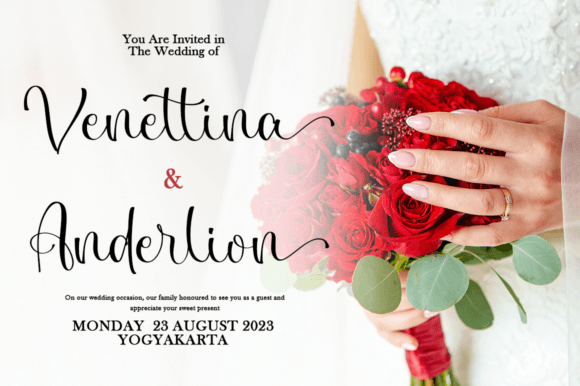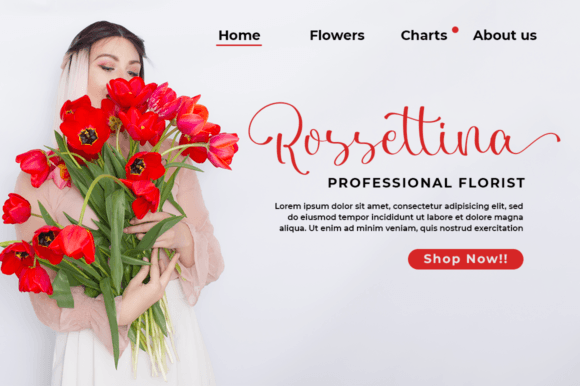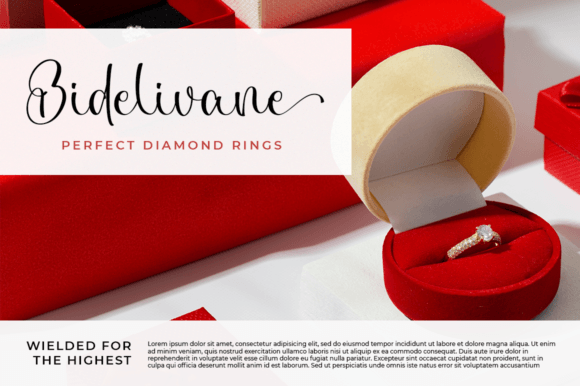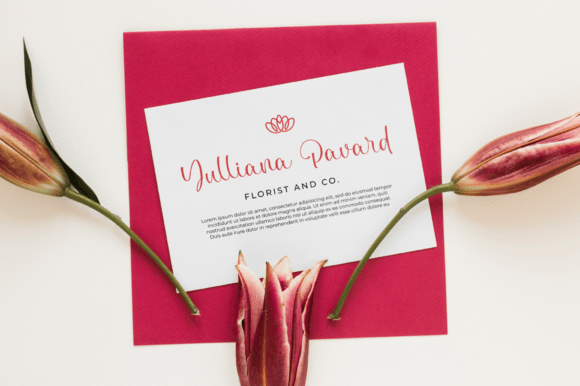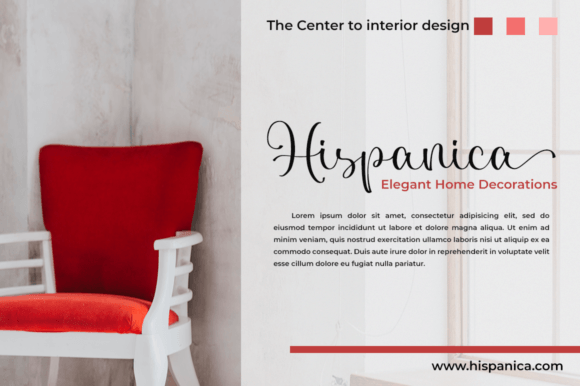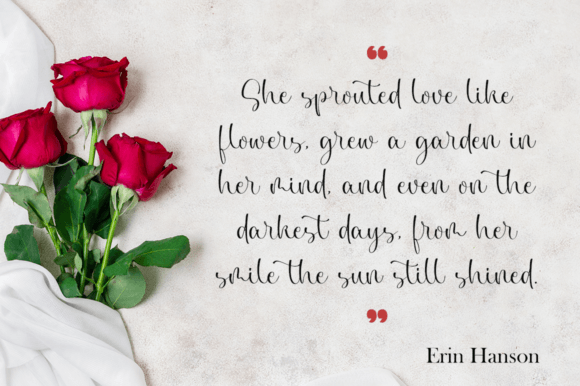
The Perfect Script: Unveiling the Beauty of the Cenavitte Font
Have you ever stared at a blank page, trying to come up with the perfect design concept? The cursor blinks, and your mind goes blank. But then, it happens – a spark of creativity strikes, and you envision a beautiful, elegant design that exudes class and sophistication. For those moments when you need a little inspiration, the Cenavitte Font is here to help.
This lovely script font is designed to bring a touch of refinement to your designs. With its delicate and intricate details, the Cenavitte Font is perfect for creating a refreshing look that’s sure to leave a lasting impression. Whether you’re a graphic designer, a typographer, or simply someone who loves beautiful fonts, the Cenavitte Font is a valuable addition to your design toolkit.
- Unique Characteristics: This font features a unique blend of modern and elegant styles, with subtle flair and intricate details, making it ideal for high-end designs and branding.
Cenavitte Font Review
Overall, I think Cenavitte is a solid choice for designers looking for a modern, elegant font. ✨ Here are some of its strengths:
- Unique and stylish design: Cenavitte has a distinct, artistic feel that sets it apart from more traditional fonts.
- Highly legible: Despite its unique design, Cenavitte is surprisingly easy to read, making it suitable for a wide range of applications.
- Large character set: Cenavitte comes with a comprehensive set of characters, including international glyphs and ligatures.
- Limited expressiveness: While Cenavitte is a beautiful font, it may not be the best choice for projects that require a lot of emotional or expressive typography.
- No bold or italic variations: If you need a bold or italic version of Cenavitte, you may be out of luck – or have to get creative with font combinations.
- May not be suitable for small text: Cenavitte’s intricate design may make it difficult to read in very small sizes, so be cautious when using it for body text.
Overall, I’d give Cenavitte 4 out of 5 stars. While it’s not perfect, it’s a beautiful and highly legible font that’s perfect for designers who want to add a touch of elegance to their projects.
For the best results, use Cenavitte Font in combination with other elegant and sophisticated fonts.
Avoid using Cenavitte Font for body text, as it is better suited for headings and titles.
Cenavitte Font is ideal for:
Restaurant menus and signage